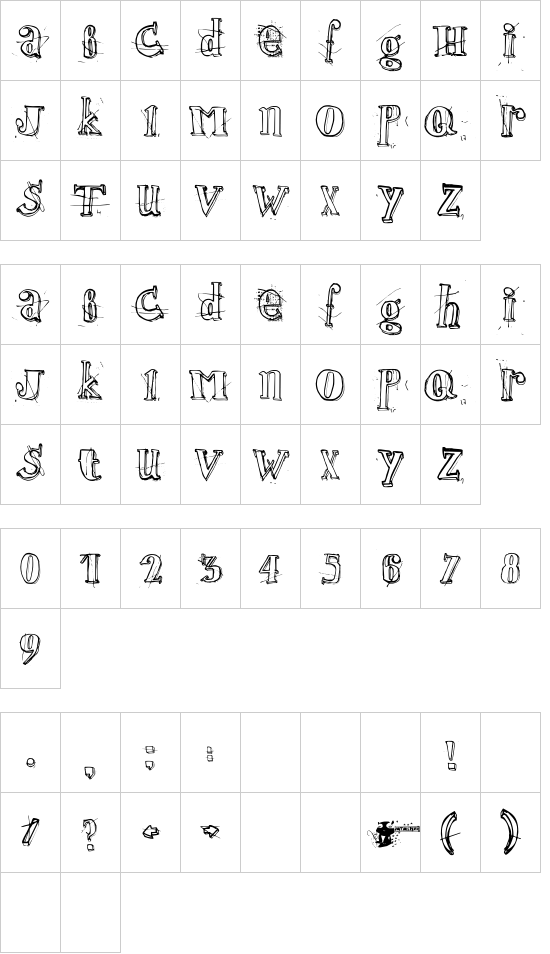
jamaistevie is a 3D grunge serif with built-in dimensional depth and a roughed-up, textured surface. The serif shapes are extruded to pop off the page, then scuffed and broken up, mixing a sense of volume with a worn, hand-printed finish.
That bold dimensional feel suits experimental posters, alternative album covers, edgy headlines, and artistic T-shirt designs. jamaistevie is free to download as a TrueType file, and you can preview it with your own text to see how the depth and texture combine at large sizes.